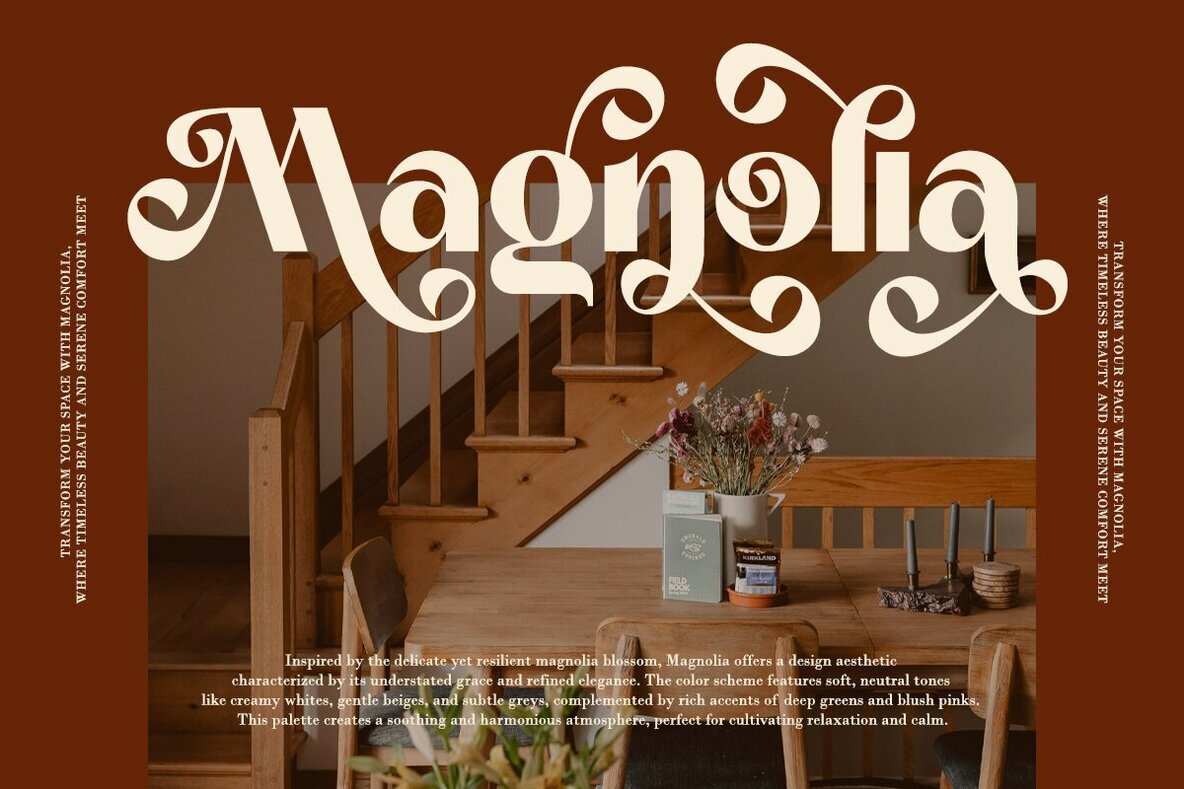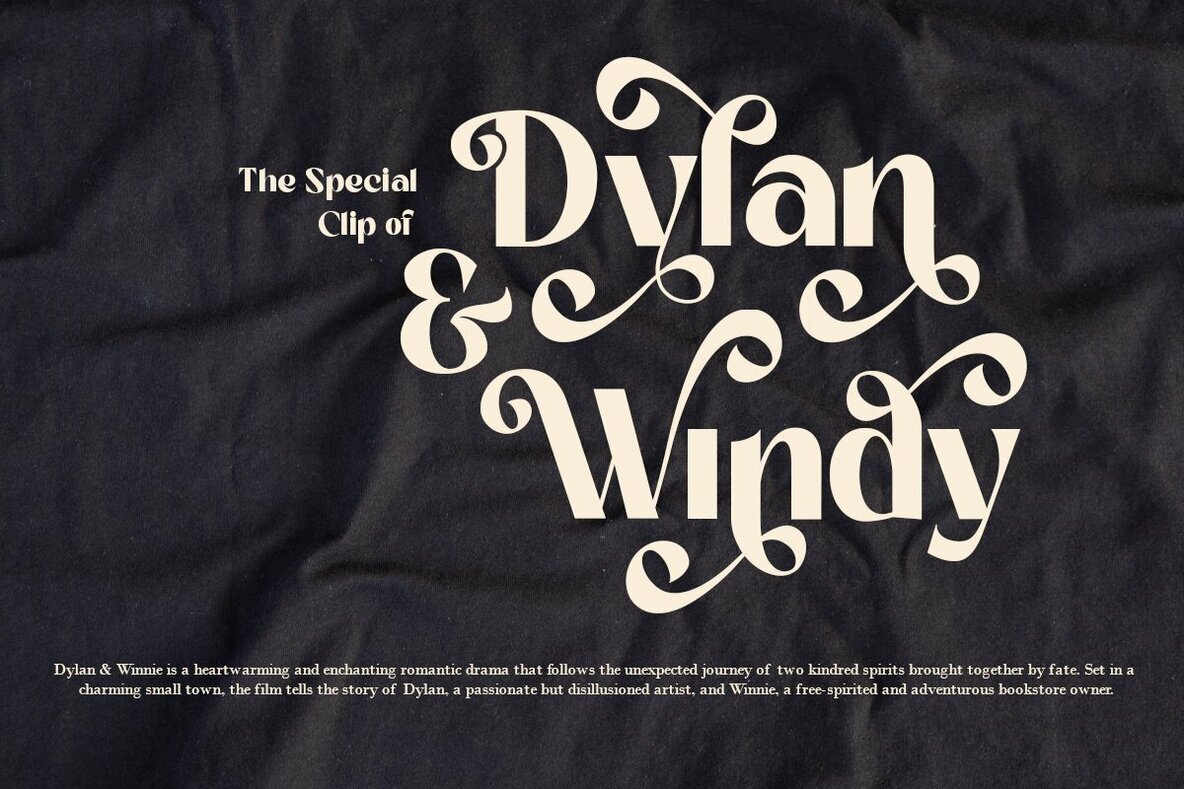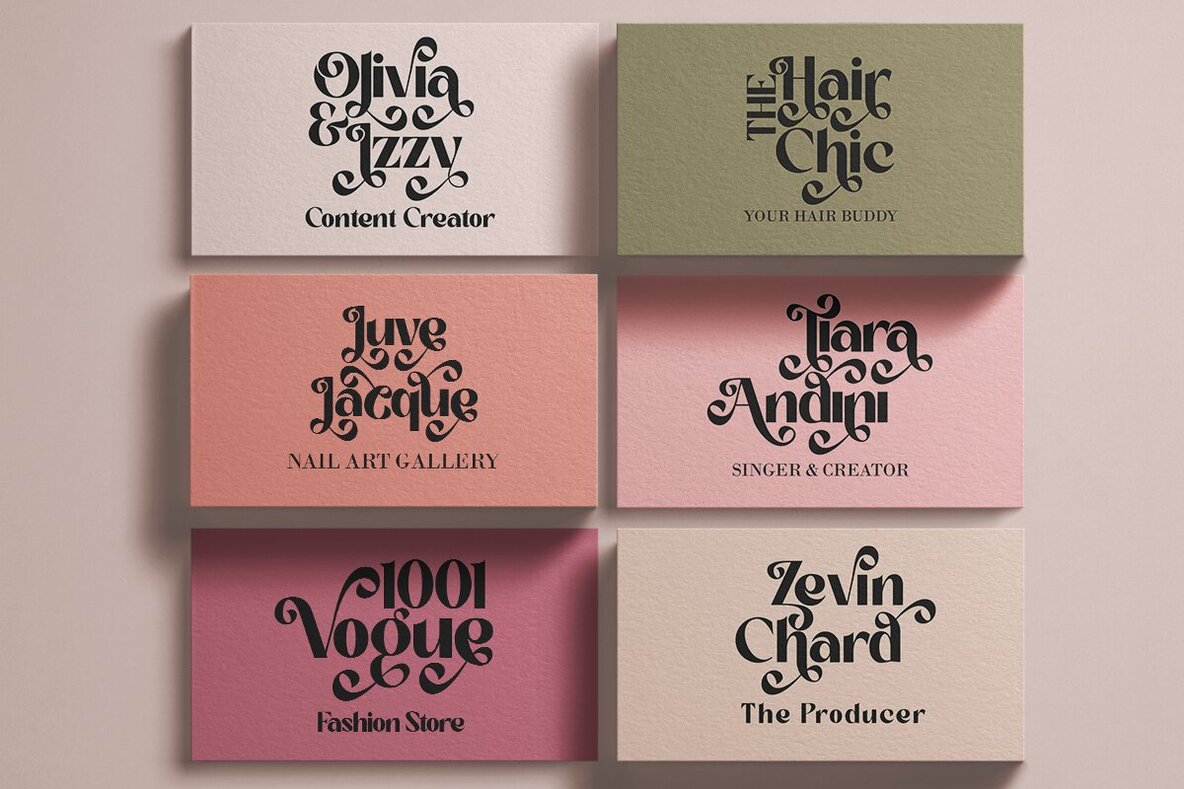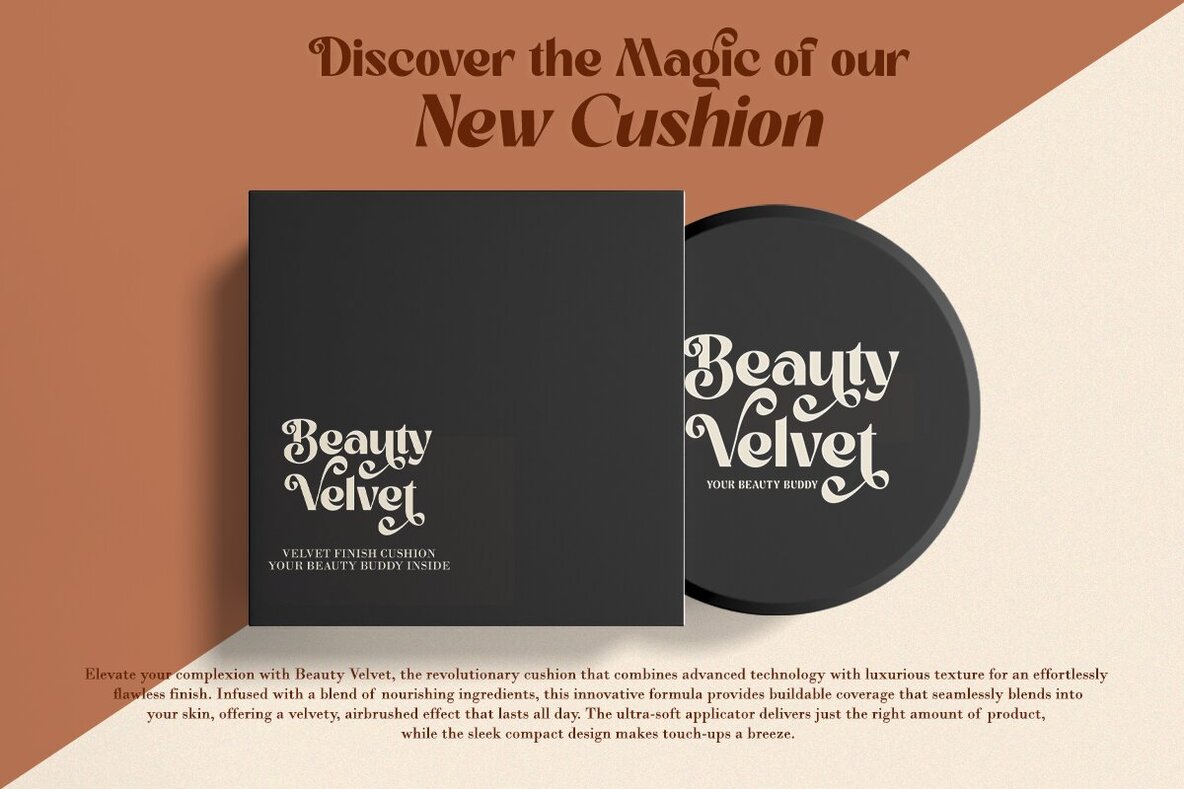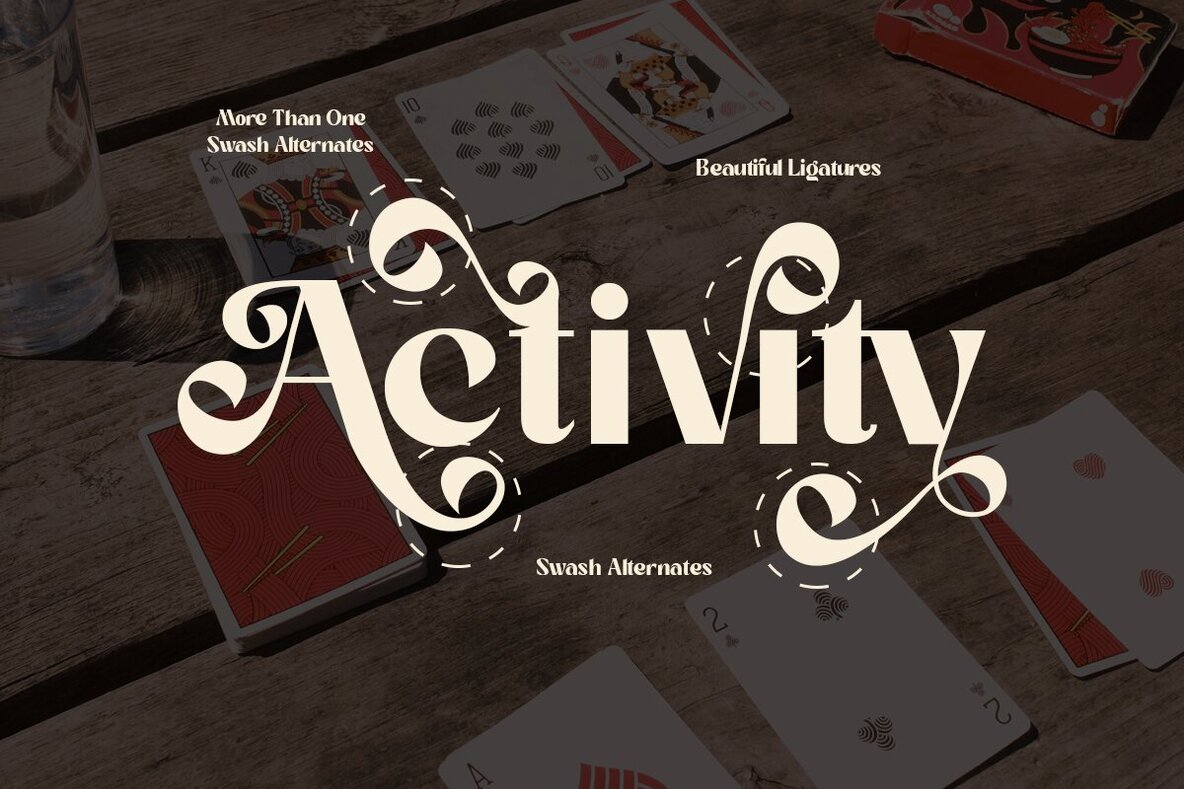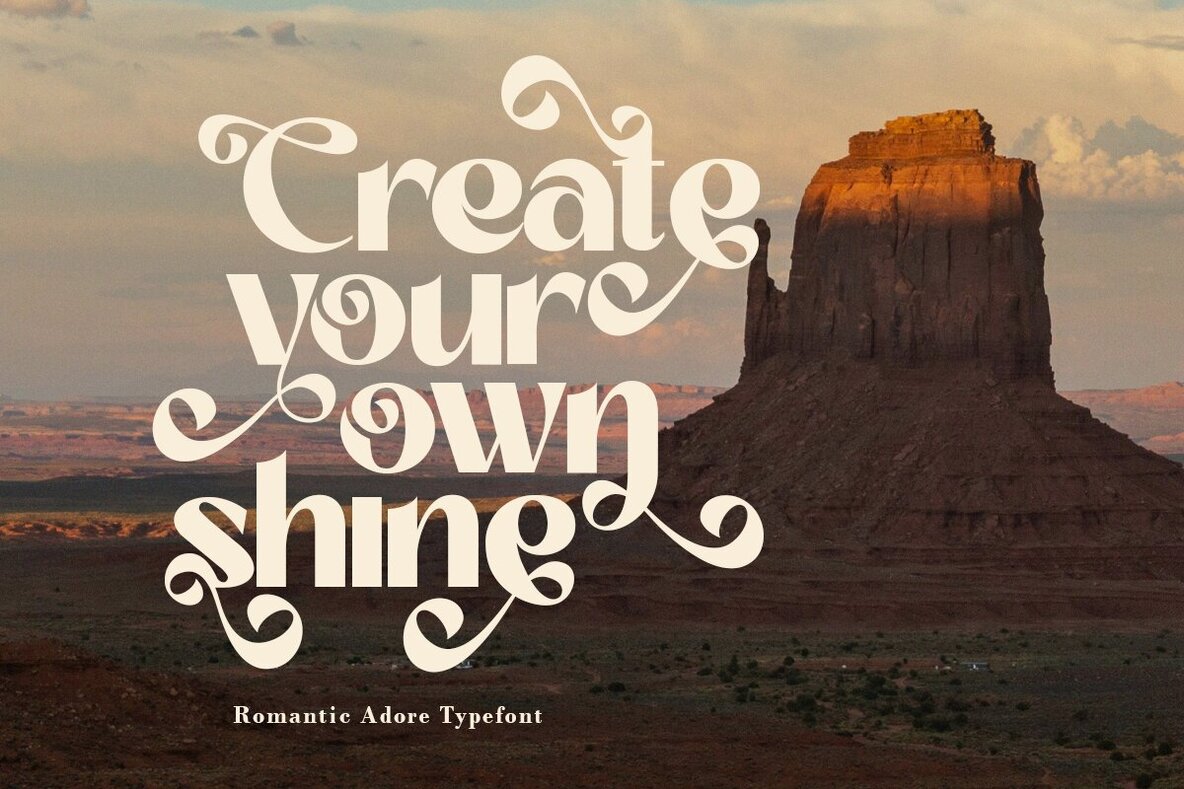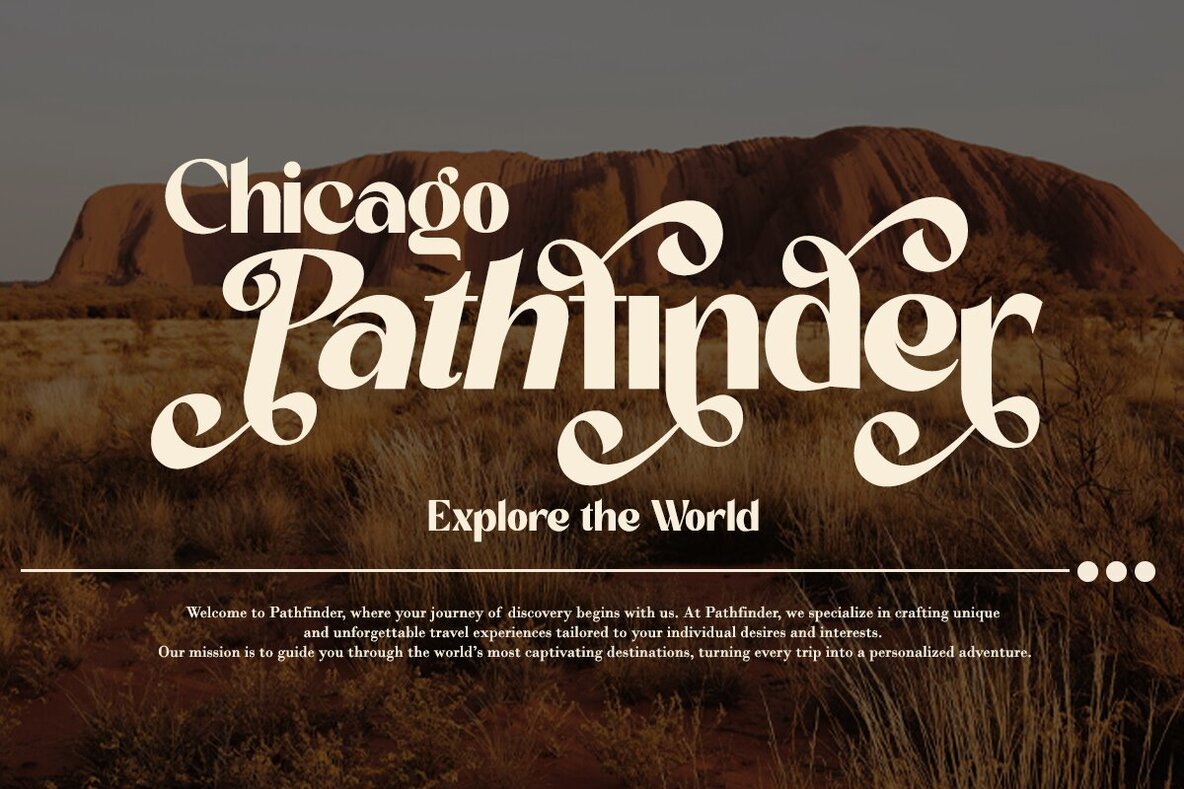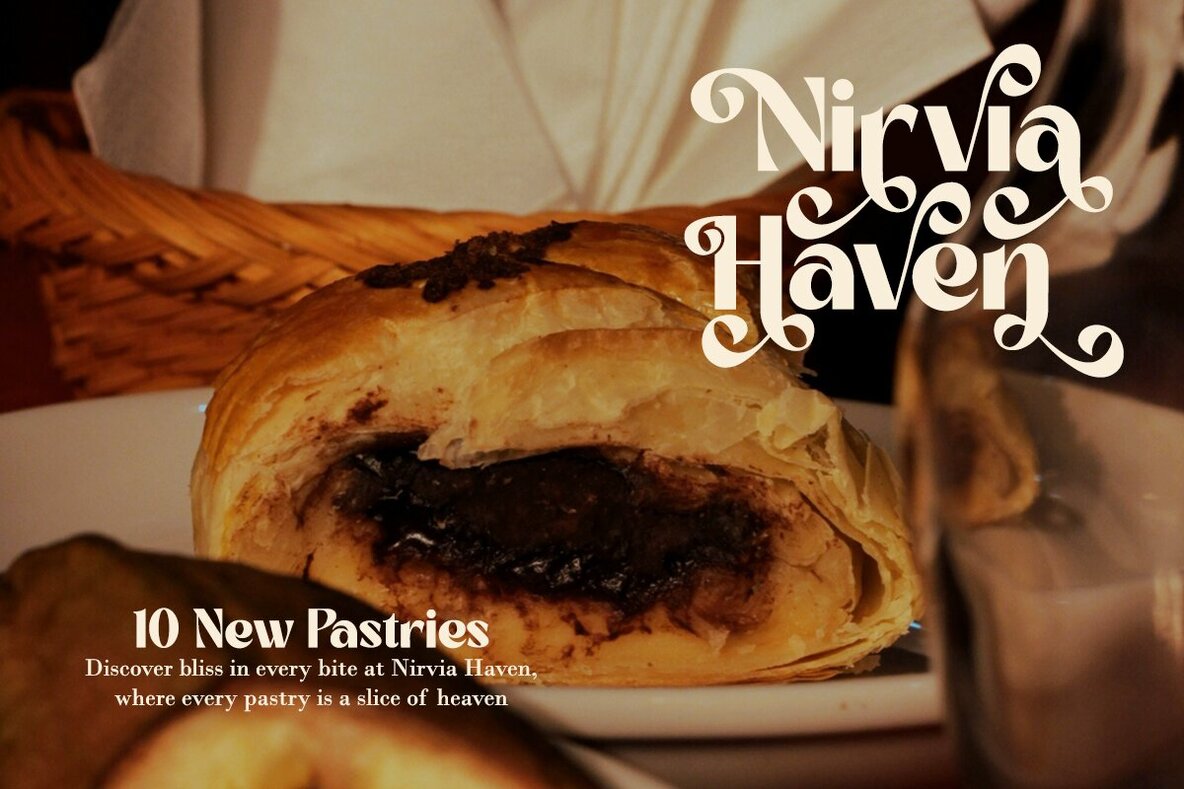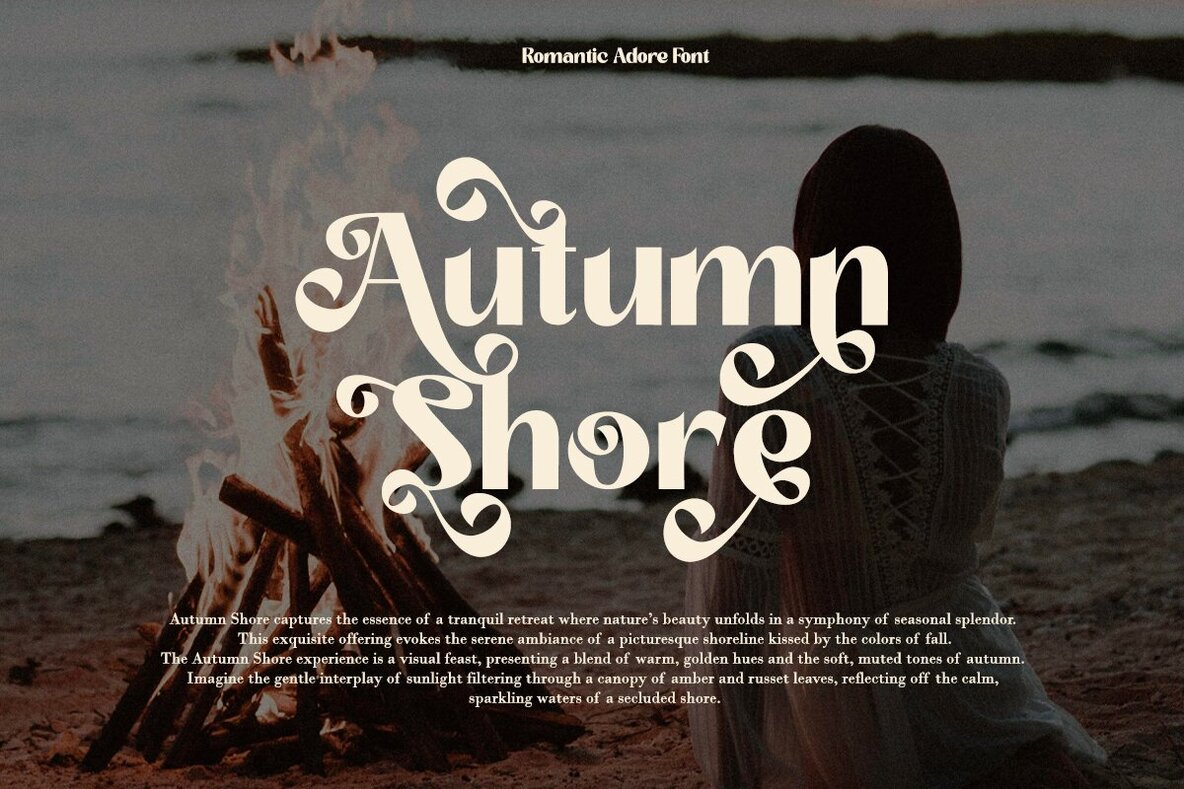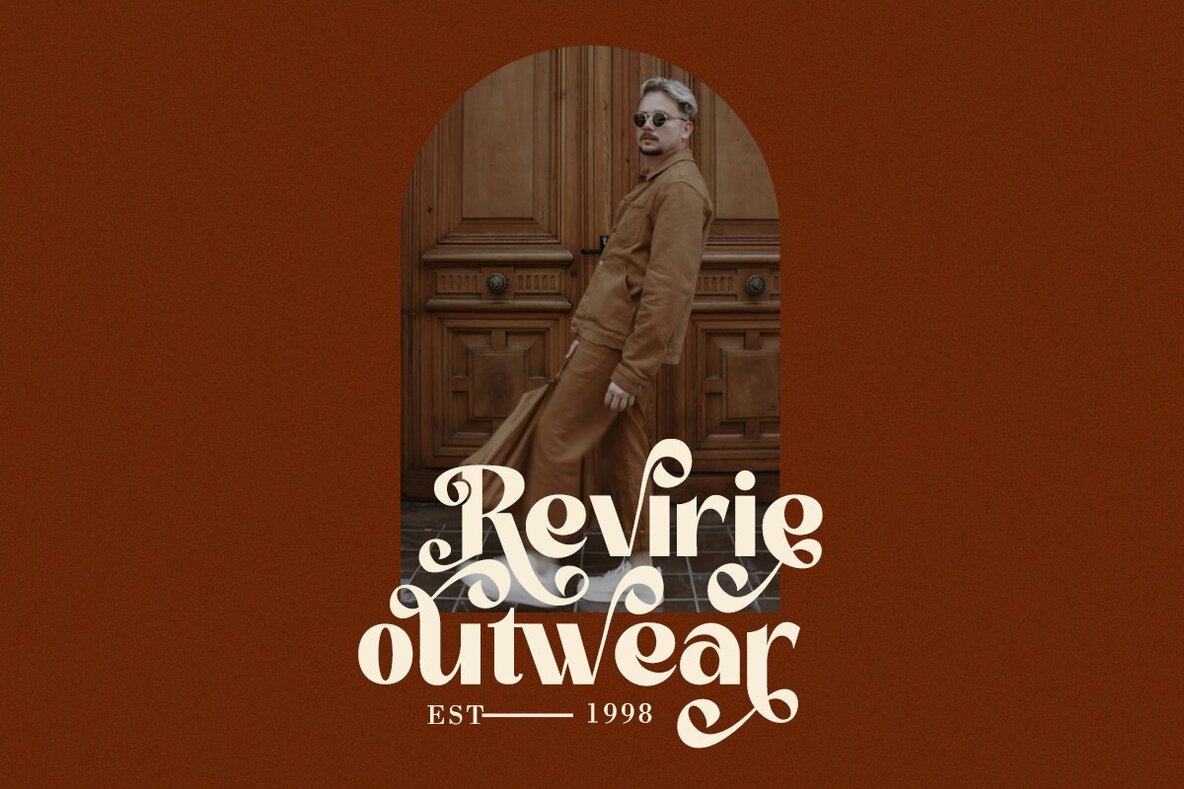
Romantic Adore Font
Romantic Adore is a beautifully crafted sans-serif font with meticulously accurate curves. Featuring swash alternative characters and ligatures, it adds an elegant touch to your projects. Ideal for wedding invitations, editorial projects, logo design, clothing branding, product packaging, and magazine headers, this font brings a stylish flair that enhances the visual appeal of your work.
- Beautiful Alternates & Ligatures
Whether you're working on digital designs or printed materials, Romantic Adore provides the versatility and sophistication needed to make your designs stand out.